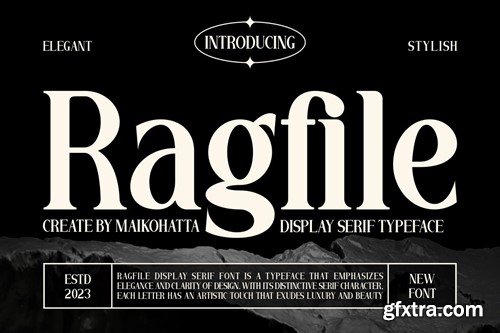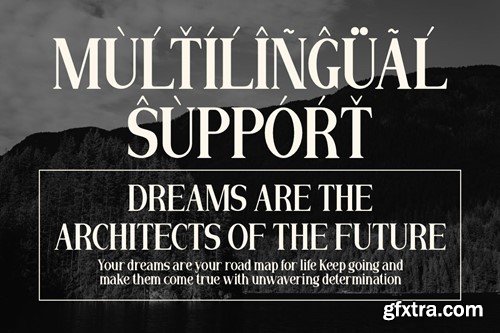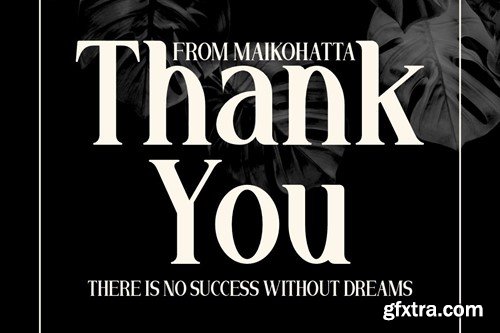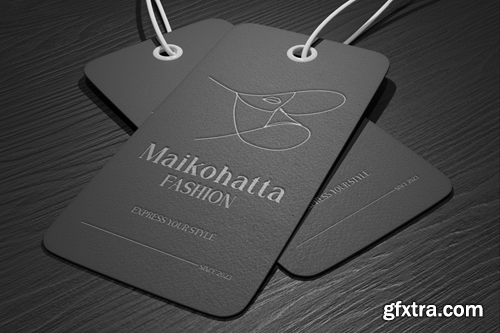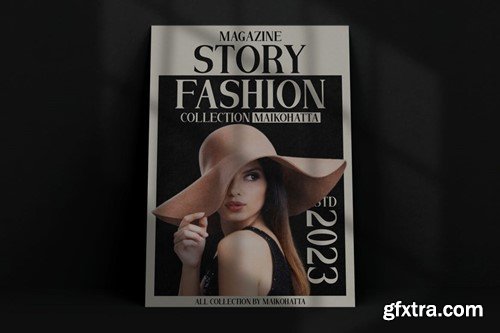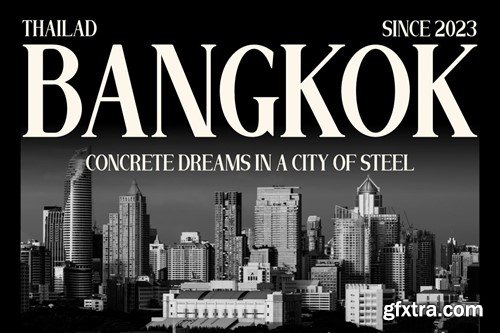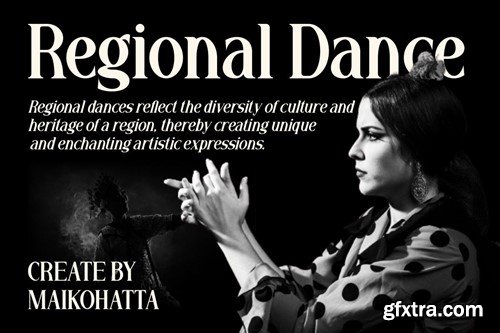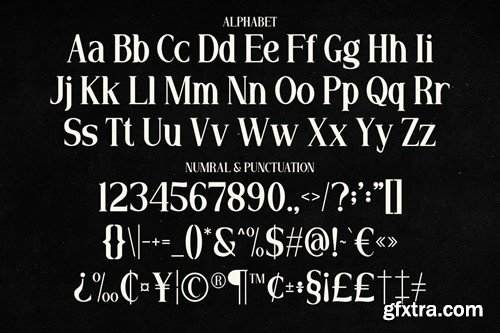
Ragfile - Display Serif Typeface Font KQGSH7R
Ragfile - Display Serif Typeface Font
Introducing our new product Ragfile - Display Serif Typeface Font
This font is a typographic masterpiece that harmonizes elegance and sharpness. Every letter within this font is meticulously designed, with a keen focus on balanced proportions and impeccable alignment. This font is well-suited for a variety of contexts, such as print design, promotional materials, or magazine layouts.
• Uppercase
• Lowercase
• Multilingual
• Ligature